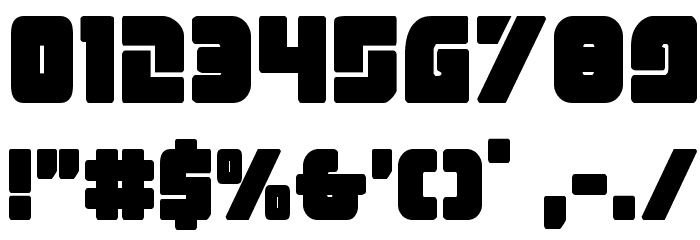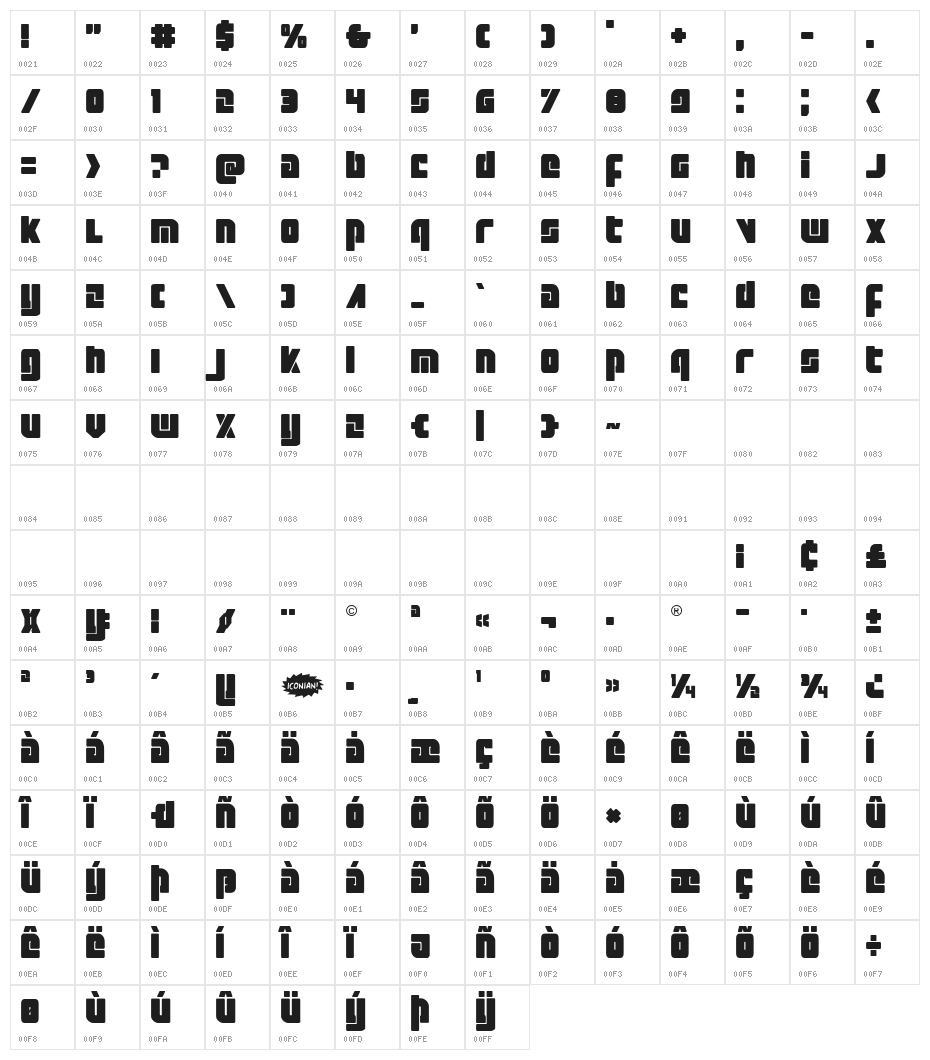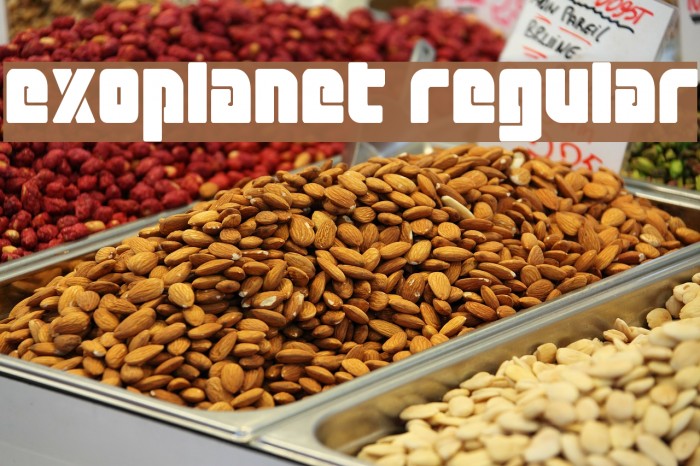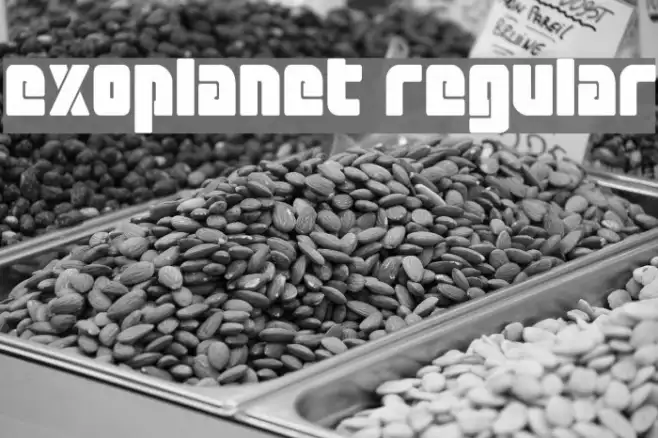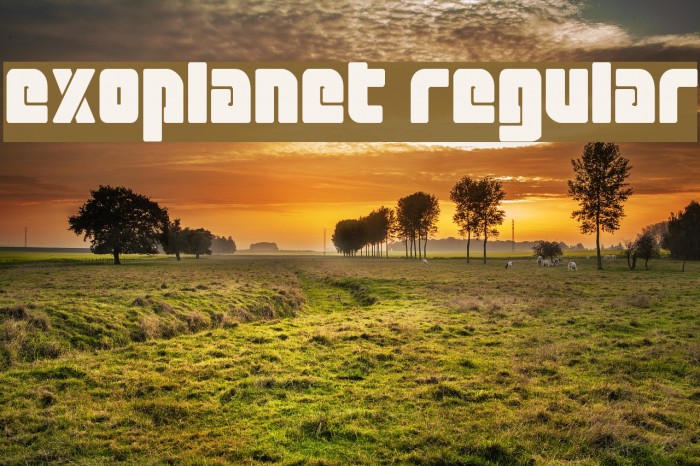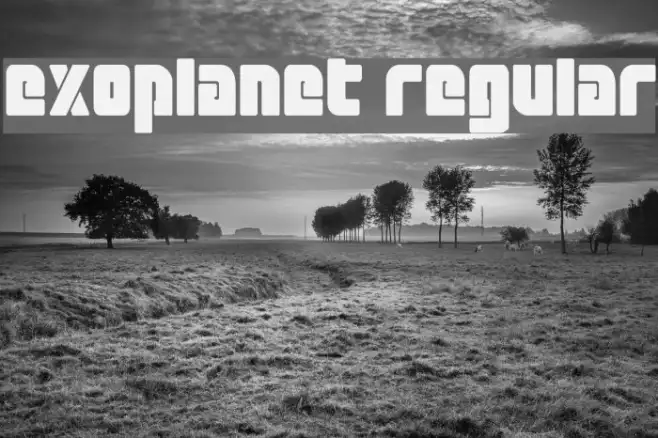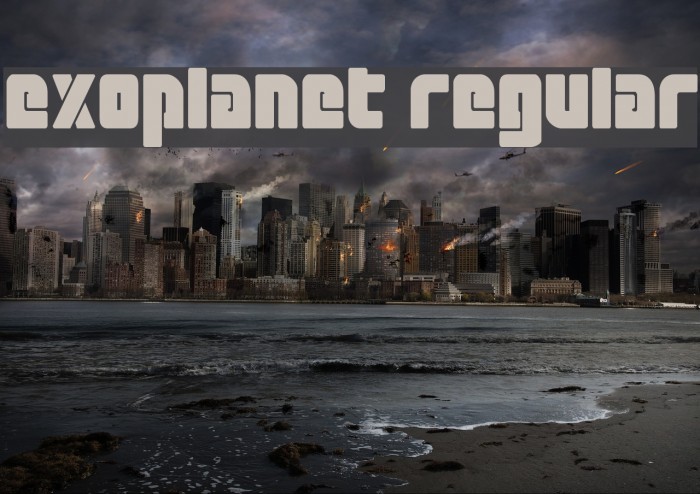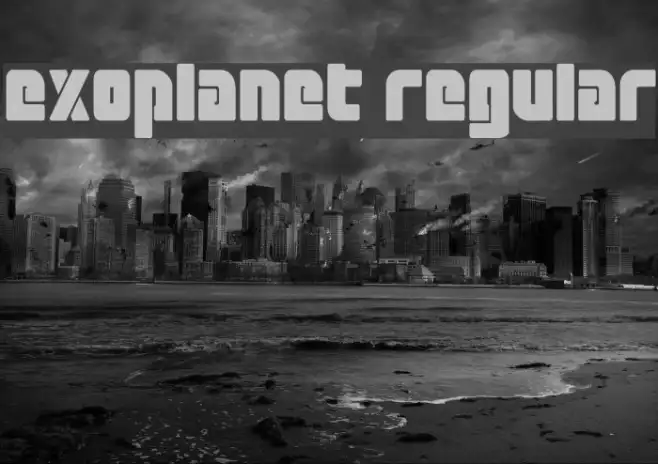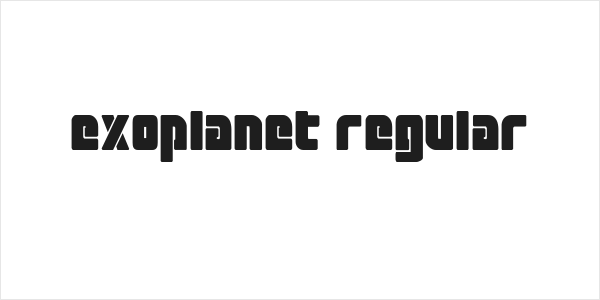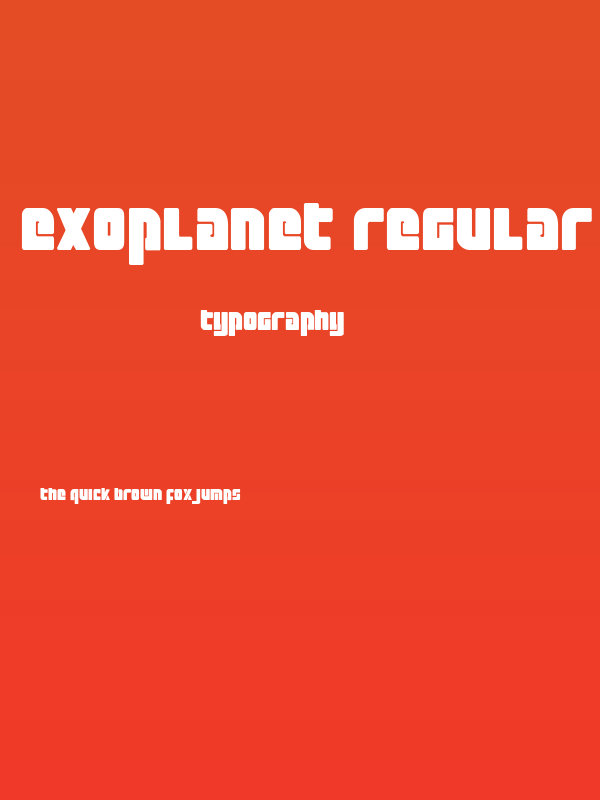
Exoplanet Regular Font
Exoplanet Regular Description
This font features a bold, futuristic design with a strong geometric influence. The characters are blocky and robust, with a uniform thickness that gives them a solid, impactful appearance. The rounded edges and closed apertures create a sense of cohesion and modernity. The uppercase and lowercase letters maintain a consistent style, enhancing readability while retaining a unique aesthetic. The numbers and special characters follow the same design principles, ensuring a harmonious look across all elements. This font is ideal for projects that require a modern, tech-inspired feel.
| Proposed Projects | Ideal for technology branding, sci-fi posters, video game interfaces, and modern advertising. |